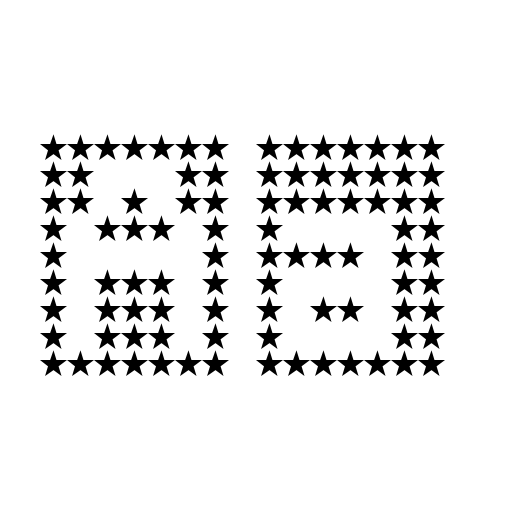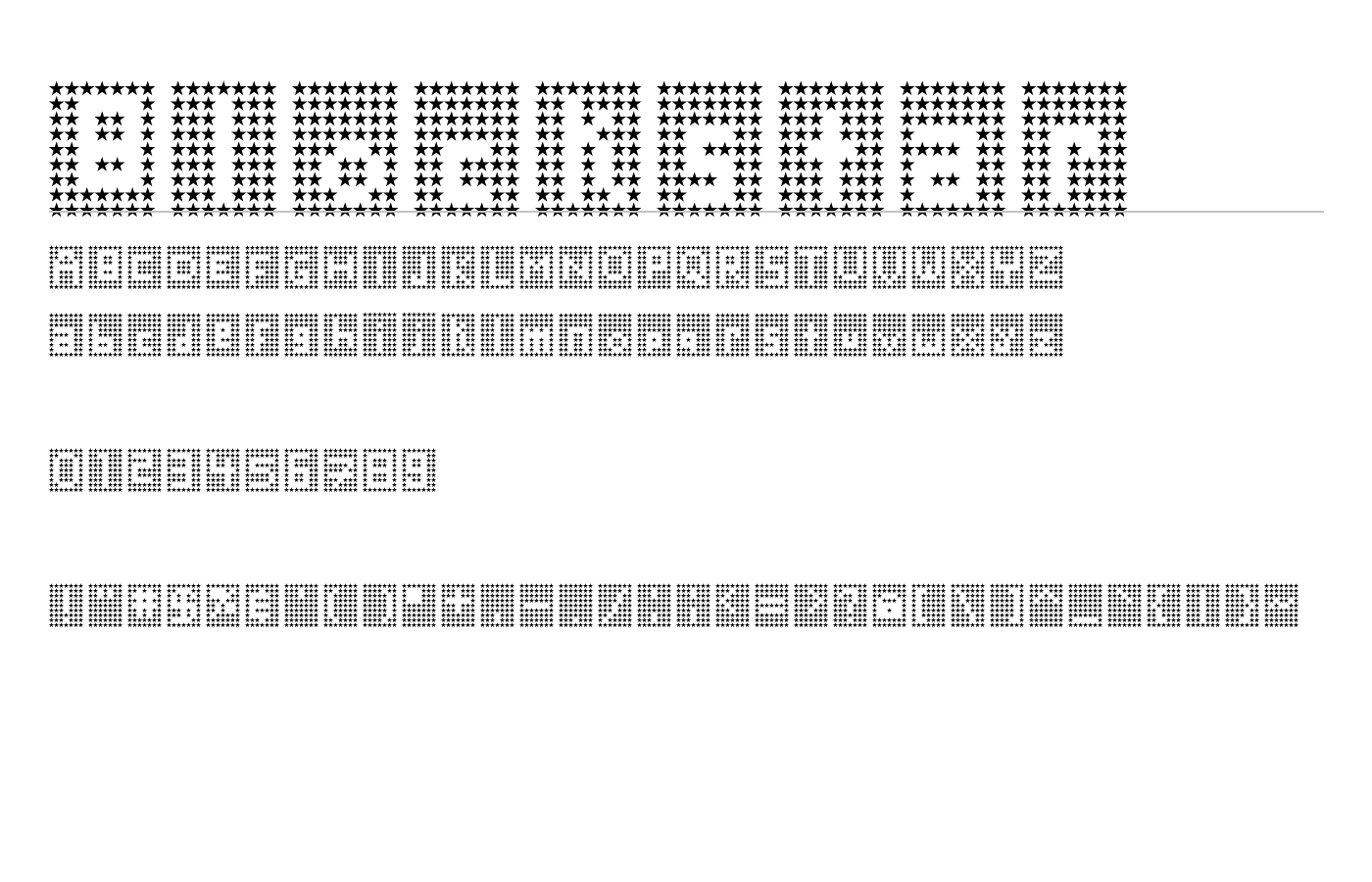
Blockstar is a bold, decorative sans serif font composed entirely of star shapes, giving it a playful and eye-catching geometric style. Its blocky letterforms and uniform star pattern create a unique, modern look perfect for standout titles, logos, and designs needing a fun or celebratory vibe. This font works best in large sizes where its distinctive shape can shine, making it ideal for posters, event branding, and creative headlines.
Blockstar Font
About Blockstar Font
| Font family | Blockstar Font |
| Designer | death kiss |